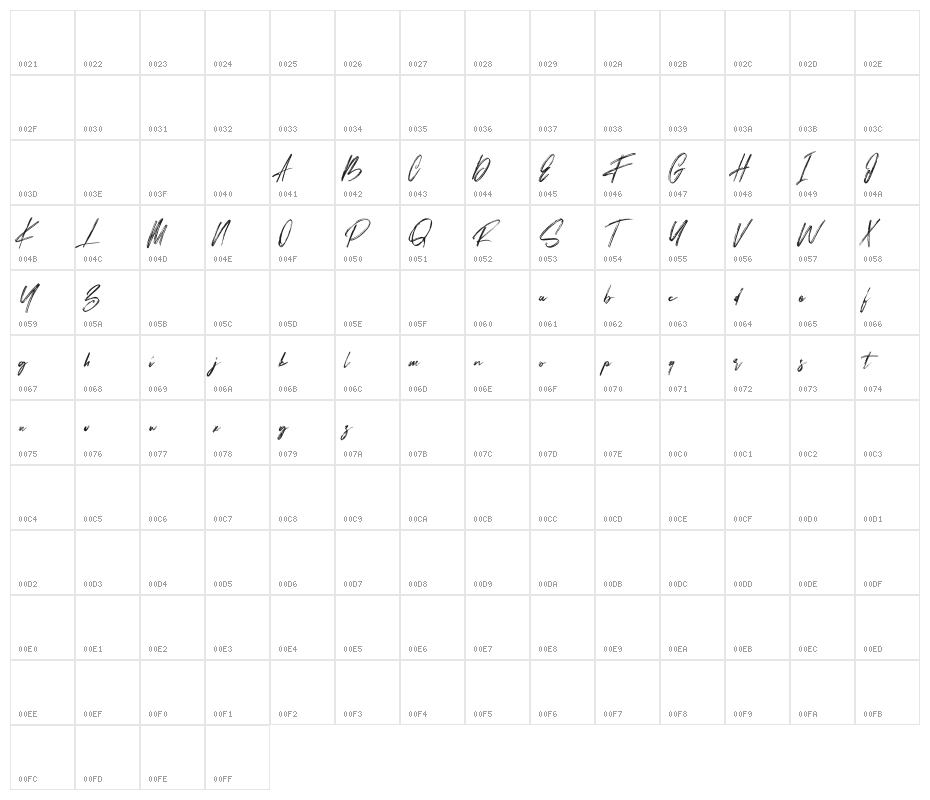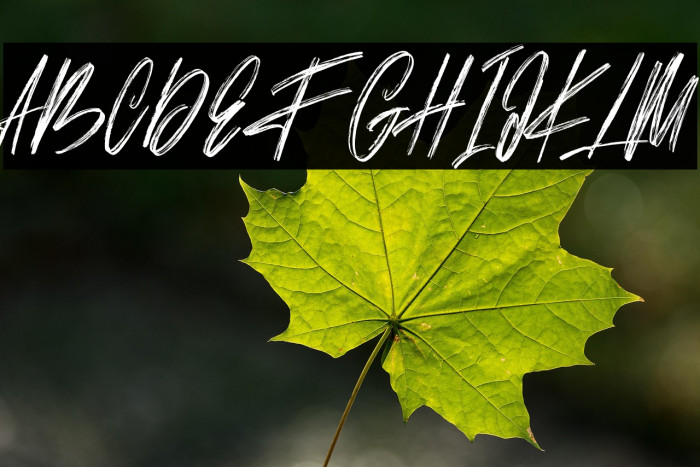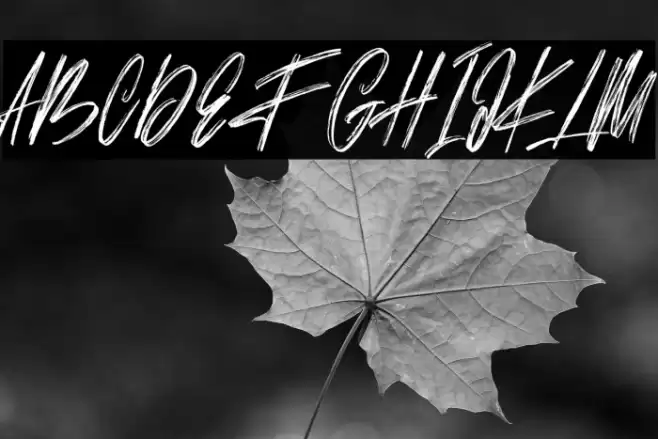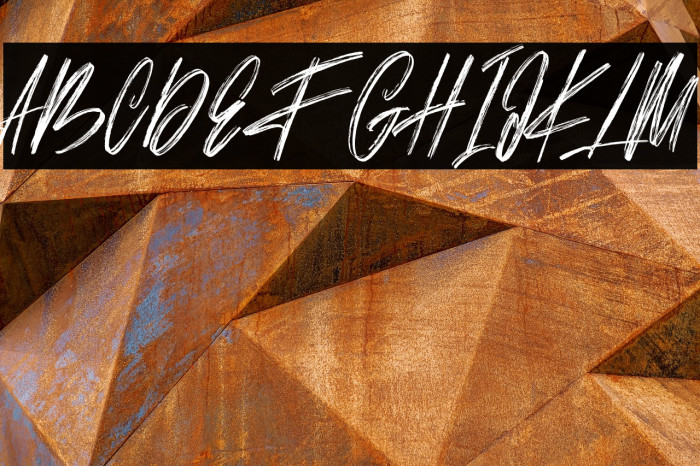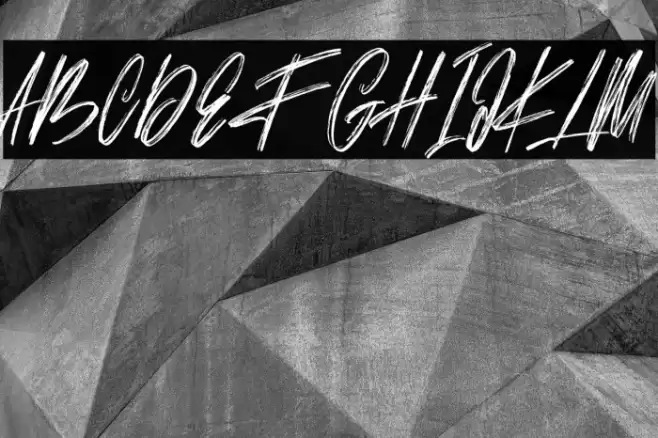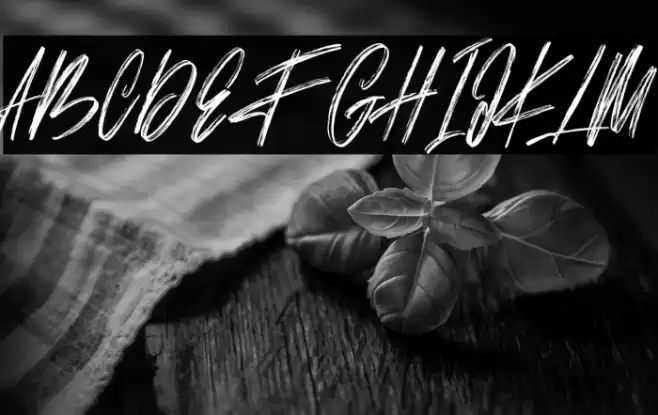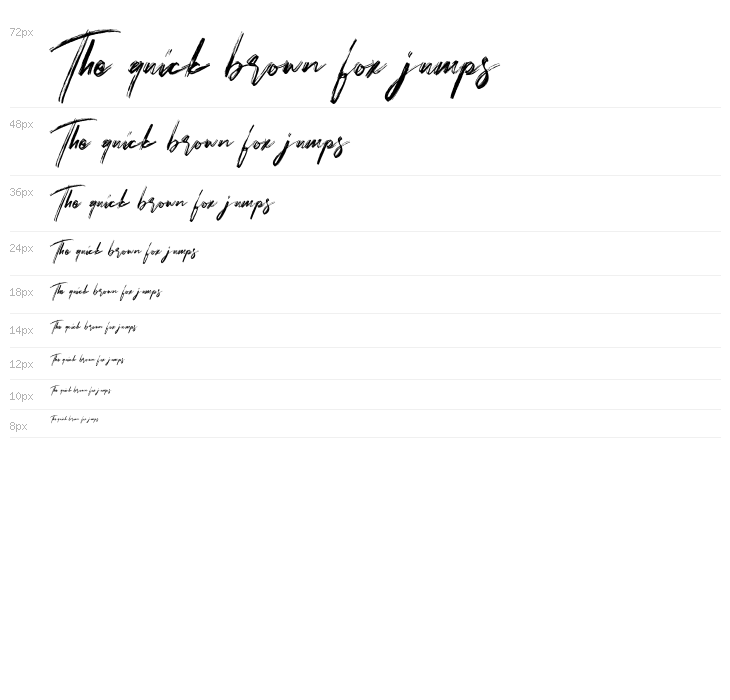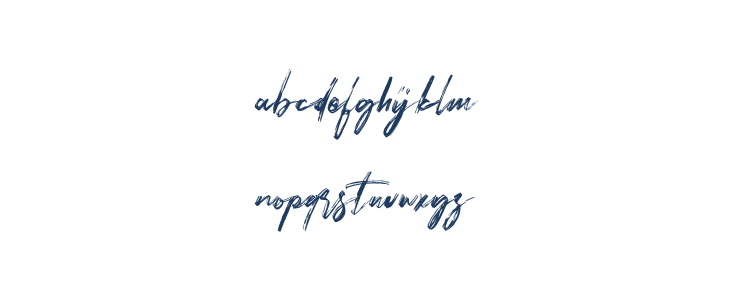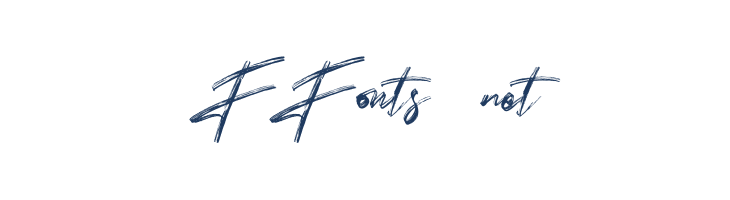
Bestro Free Font
Bestro Free Description
This font exudes a dynamic and energetic style, characterized by its bold, brush-like strokes that convey a sense of movement and spontaneity. The uppercase letters are particularly striking, with their elongated forms and varying line thicknesses, creating a sense of rhythm and flow. The lowercase letters maintain this lively aesthetic, with some characters featuring playful loops and swashes. The overall appearance is both artistic and informal, making it ideal for projects that require a personal touch. The font's unique style is perfect for creative designs that aim to stand out.
| Proposed Projects | Ideal for branding, posters, artistic projects, and social media graphics. |